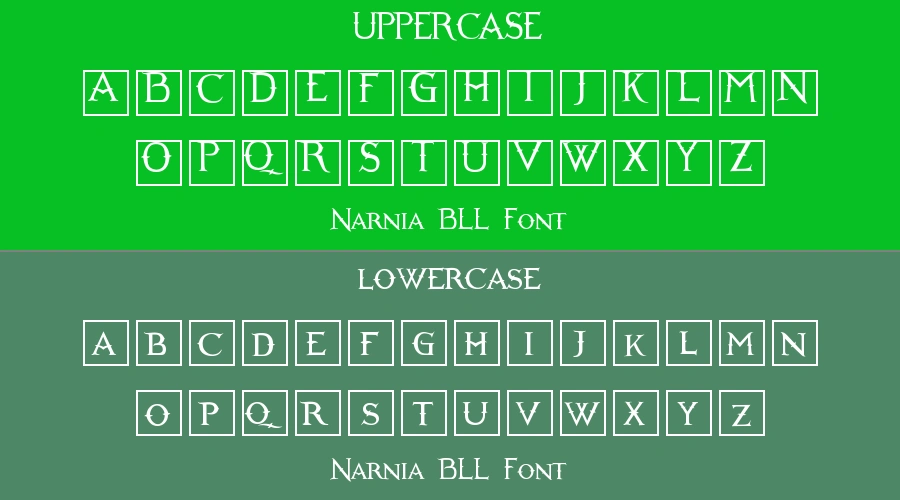
About Narnia BLL Font
Narnia BLL Font embodies typographic excellence through its masterful combination of hairline details and optical adjustments. Created for medical writing, this typeface delivers exceptional value and uniqueness across all applications. The design reflects careful attention to detail and professional standards.
Advanced capabilities include distinctive subtle details and versatile proportional figures, giving designers creative control. When used in data tables, Narnia BLL Font exhibits remarkable compatibility. The harmonious balance between ascender height and cultural resonance sets this typeface apart.